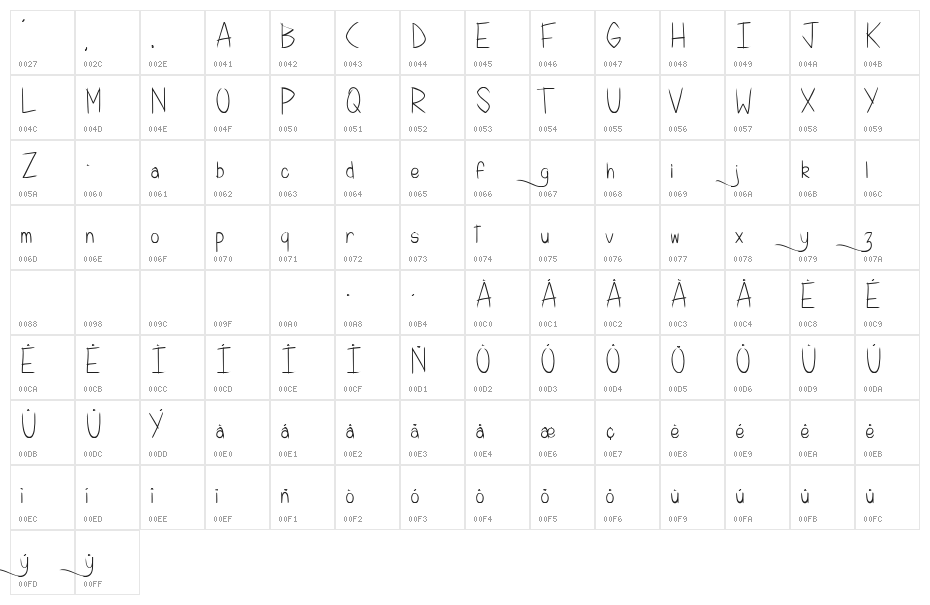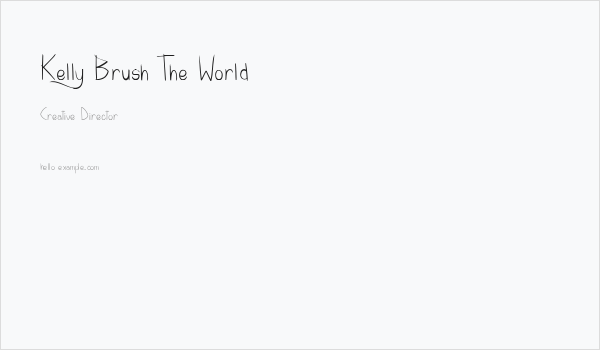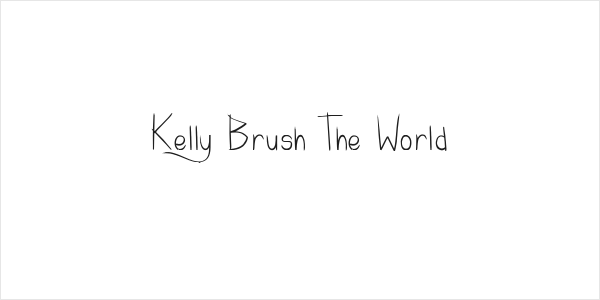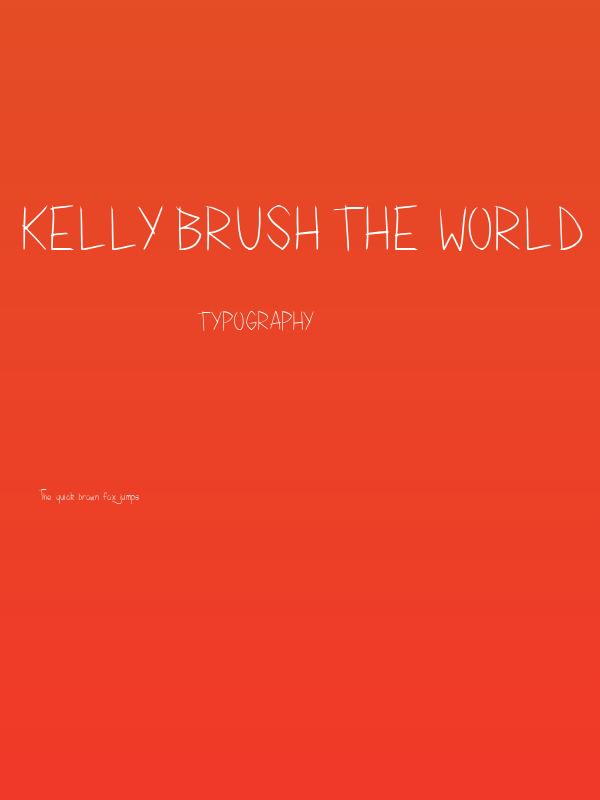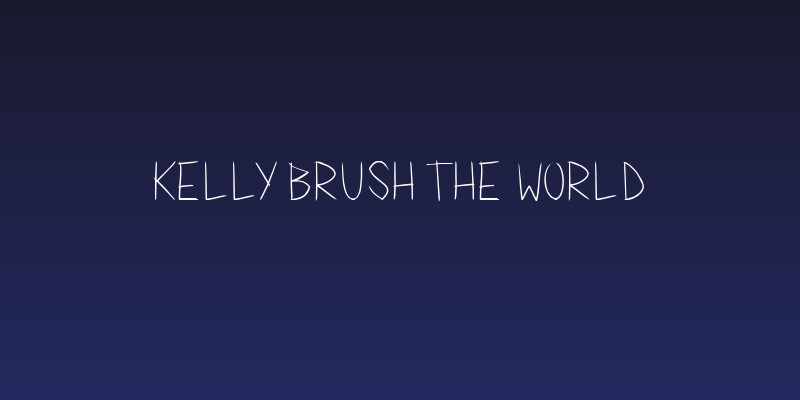
Kelly Brush The World Font
Kelly Brush The World Description
This font features a playful and whimsical style with a hand-drawn appearance. The uppercase letters are tall and slightly irregular, giving a casual and artistic feel. The lowercase letters incorporate unique swashes and curves, adding to the font's charm and individuality. The strokes are thin and consistent, contributing to a light and airy aesthetic. The font's overall design is informal and friendly, making it suitable for creative and fun projects. Its distinct character shapes and flowing lines make it stand out, perfect for adding a personal touch to any design.
| Proposed Projects | Ideal for greeting cards, children's books, playful branding, and creative posters. |